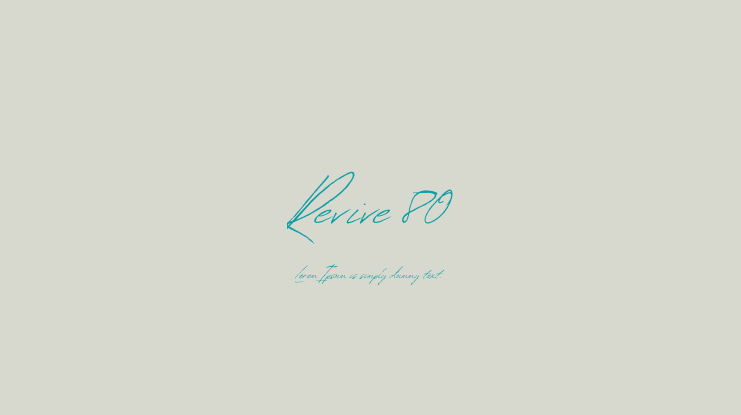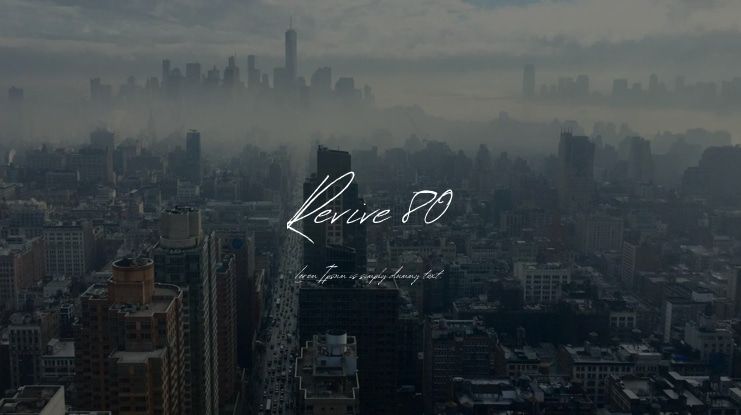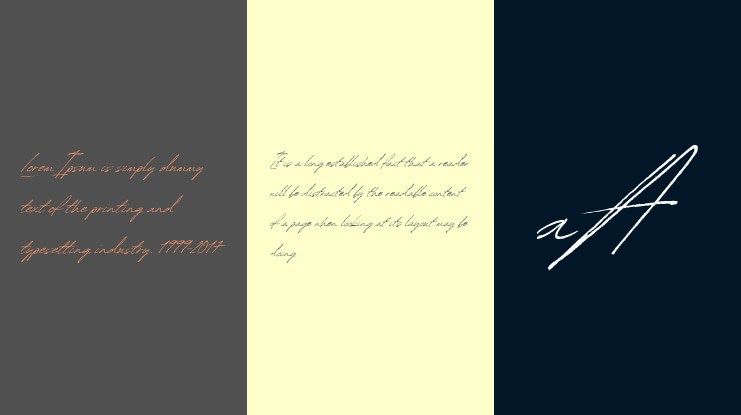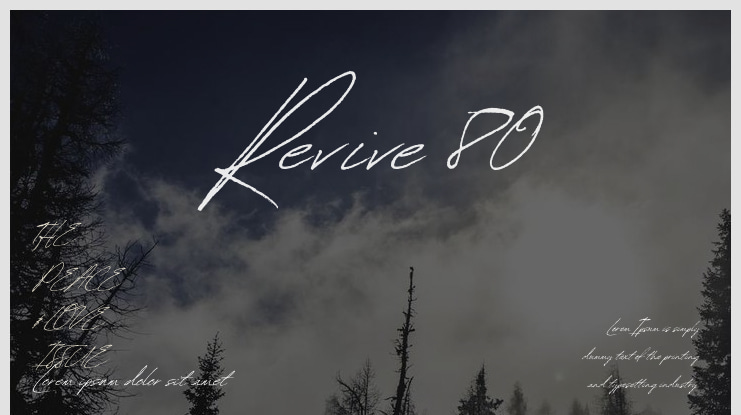
Part of the Revive 80 Font Collection by Tom Chalky—a family inspired by poster design work from the 1980s!
Full Collection Description:
Proudly introducing the Revive 80 Font Collection—a family of 8 super versatile typefaces heavily inspired by popular 1980s design. This collection is ripe and ready to aid you in creating designs reminiscent of the past. The 80s are making a very welcome comeback through our screens, on supermarket shelves, within fashion, and everywhere in between. While we can apply a vintage sheen to our work with just a few clicks, choosing the right typefaces is crucial and often underestimated.
The goal with this family was to create a cohesive collection of typefaces, inspired by the era without being tied to a specific genre. Versatility was high on the list of priorities. The three sans-serif typefaces developed for the collection were designed to fit different heights and widths, making them very powerful when used together. The signature script is the cherry on top, finishing the collection beautifully.